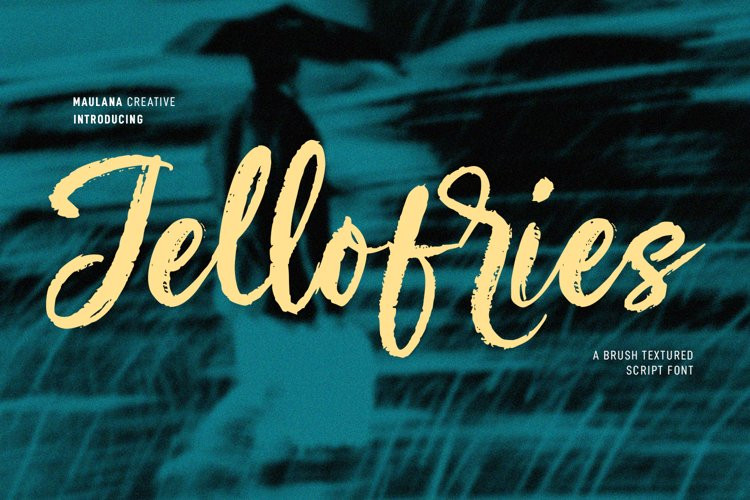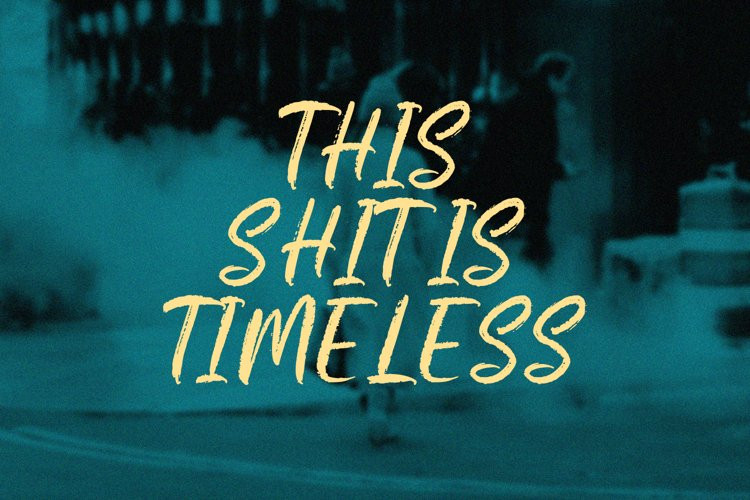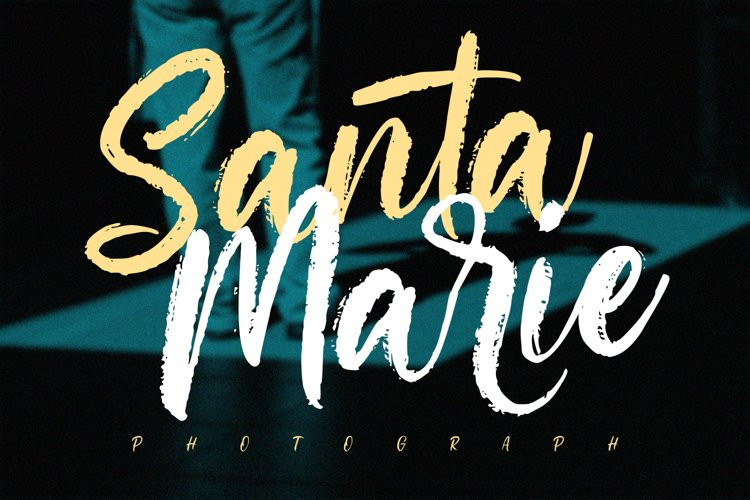
Jellofries Font
Jellofries FontJellofries is a fancy brush script font. With brush bold contrast stroke, fun character with a bit of ligatures and alternates. To give you an extra creative work. Jellofries font support multilingual more than 100+ language. This font is good for logo design, Social media, Movie Titles, Books Titles, a short text even a long text letter and good for your secondary text font with sans or serif. Make a stunning work with Jellofries font.